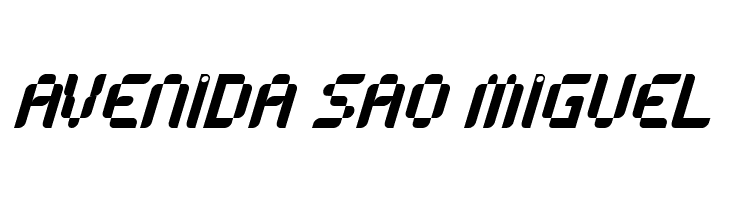
• Anasthesia Italic
( Fonts by Dieter Schumacher )
A modern, italicized font with bold, angular lines and a futuristic style.
A playful and whimsical font with tall, narrow letterforms and dynamic strokes.
• Anayu - Personal Use
( Fonts by Endri Sulistyawan - Personal-use only. For commercial use please contact owner. )
A playful, whimsical font with tall, narrow letters and a modern artistic flair.
• Anazura
( Fonts by Sesa Grafika - Personal-use only. For commercial use please contact owner. )
An ornate and decorative font with intricate curls and swirls.